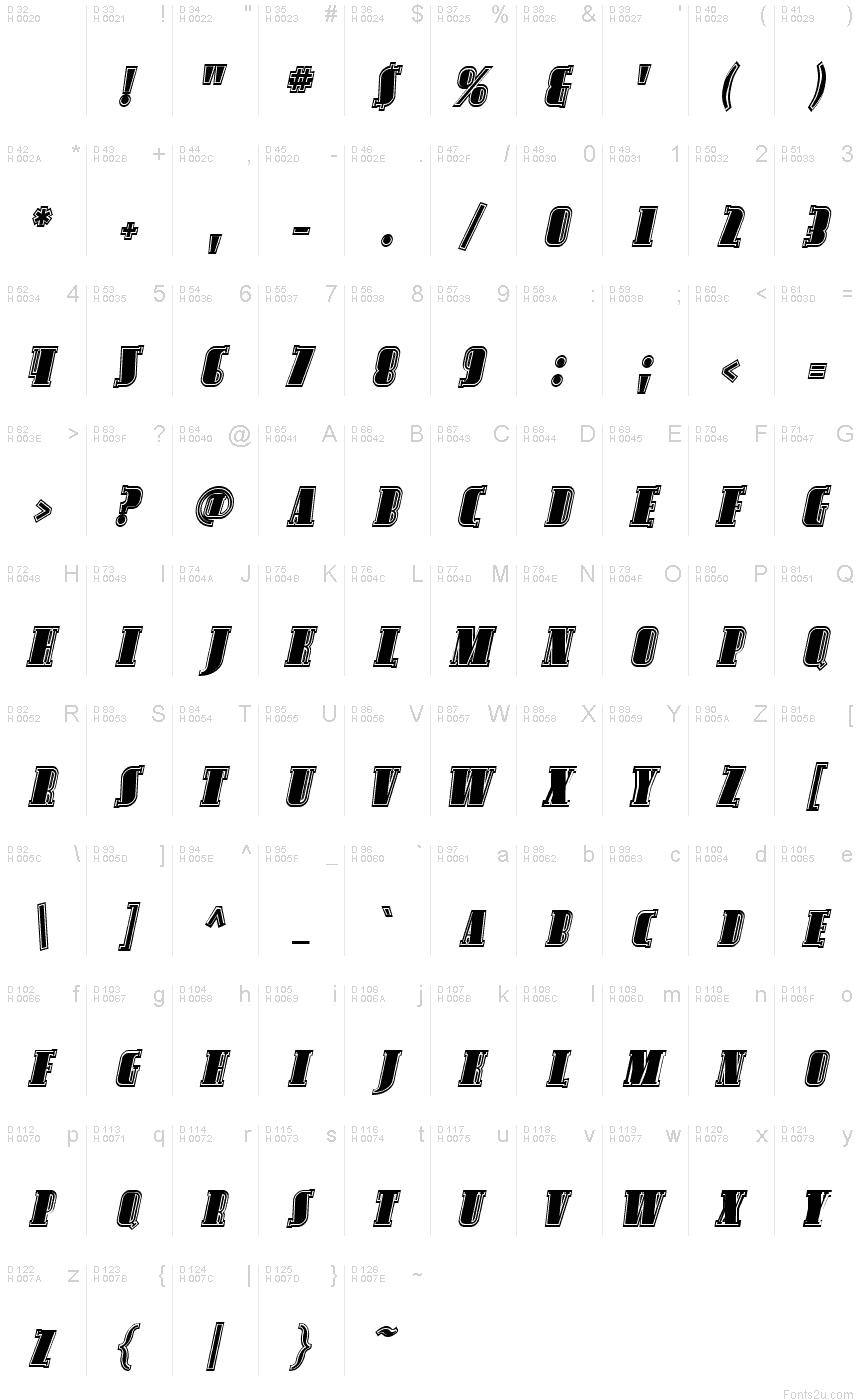
SF Avondale SC Inline Italic, designed by Derek Vogelpohl of ShyFoundry, is a free old-school inline display font rooted in athletic lettering. Its tall, slanted caps combine slab serifs, broad strokes, and a fine inset line. The layered edges sharpen the varsity look.
It turns a team emblem or event title into stadium signage. Sports merchandise and music posters also suit its forward lean and dense construction. The inset stripe links these uses by making each letter a badge.